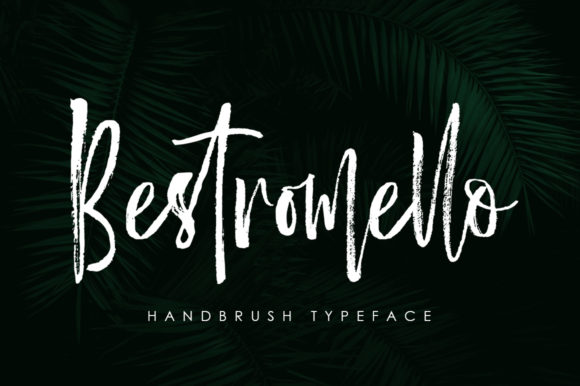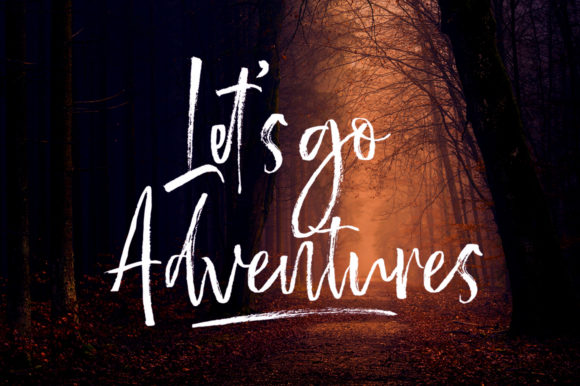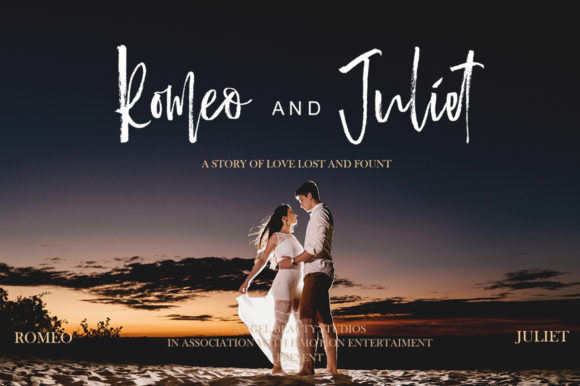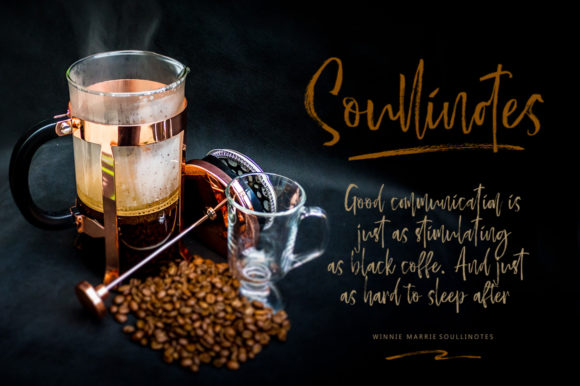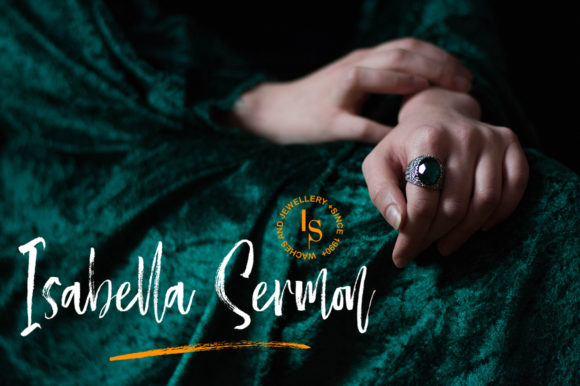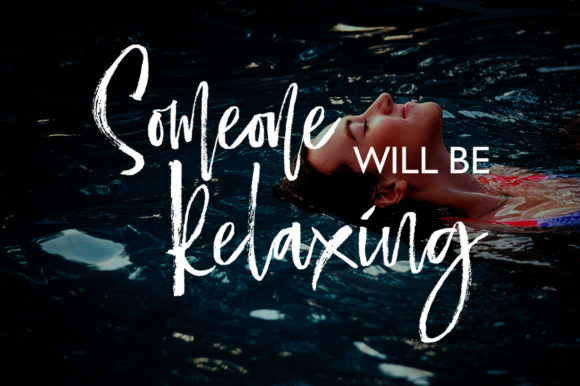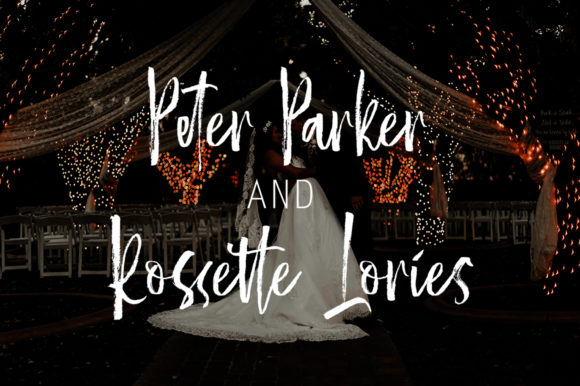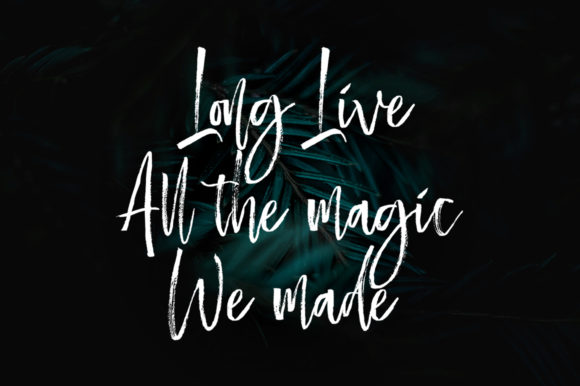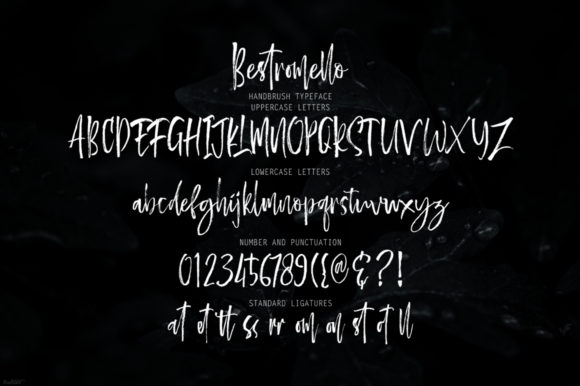
Bestromello Font
About Bestromello Font
Bestromello is a modern brush font with an irregular baseline. It is perfectly suited for a wide variety of projects!